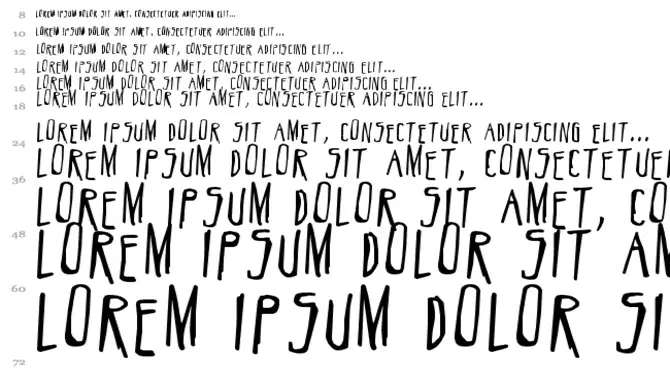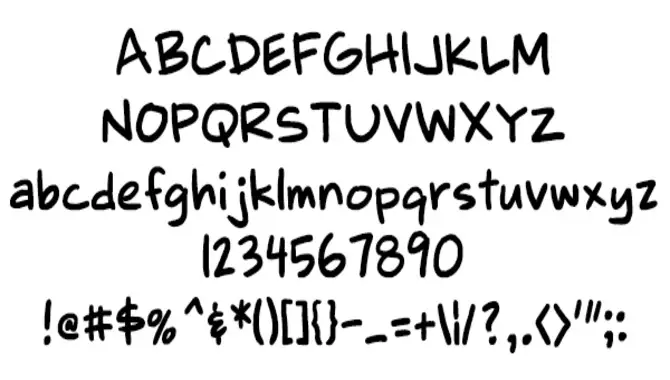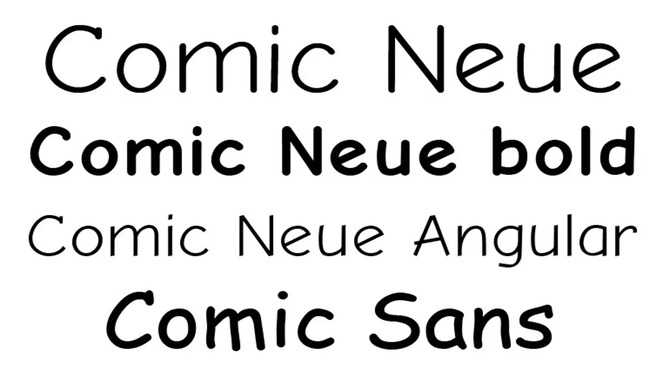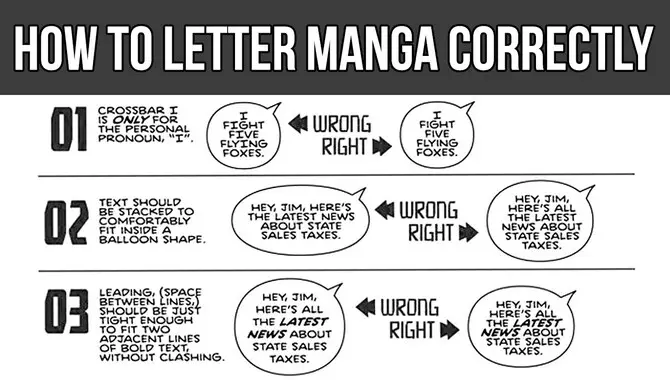
Choosing the right font for comics is crucial as it can make or break the tone and emotion of your work. Different fonts come in different styles, and comic typography has evolved throughout history to reflect changing tastes and preferences.
Comics have been around for over a century, and the fonts used in them have played an integral role in setting the tone and mood of the story. Choosing the right font can make all the difference in creating a compelling comic.
We will provide a comprehensive guide on 5 fonts used in comics and their features and advantages. We will also discuss the differences between serif and sans-serif fonts commonly used in comics and the best practices for using fonts effectively.
How To Choose Font Used In Comics
Choosing the right font for your comic is essential as it can significantly impact the tone and emotion conveyed in your narrative. When selecting a font, consider the genre of your comic and choose a font that complements its mood.
It’s also important to ensure that the font is easy to read, especially in small sizes or on digital screens. Avoid using too many fonts in one comic, confusing your readers. Instead, experiment with different combinations to find a unique style that reflects your vision. Lastly, use bold or italicized versions of font to emphasize certain words or dialogue.
1. Comic Neue Font
Comic Neue is a popular font combining classic comic book style and modern design elements. Its readability and versatility for different types of comics make it a preferred choice for many comic book creators. The font comes in various weights and styles, making it easy for print and digital comics.
When choosing a font for your comic, factors such as legibility, style, and tone must be considered. Ultimately, the font you choose should complement the overall aesthetic of your comic while being easy to read.
2. Belizarius Font
Belizarius Font is a bold, commanding font that strengthens superhero comics or action-packed scenes. It’s thick strokes and sharp edges make it easy to convey a sense of power and drama on the page.
This versatile font comes in regular and italic styles, making it suitable for different comic designs. However, it’s essential to remember that the typeface should match the overall tone of your comic book, so take care when selecting the right font for your project.
3. Boldly Missy Comic Handwriting Font
With Boldly Missy Comic Handwriting Font, you can add a touch of whimsy and personality to your comic book characters’ dialogues. This font brings a playful vibe to your pages with its bold, handwritten style that’s easy to read.
Whether you’re creating superhero stories or graphic novels, this versatile font is perfect for various comic book genres. Additionally, customization options such as size and color allow you to match the font to your comic book’s theme and create a unique look.
4. Little Pea Font
Little Pea Font is a highly popular choice among comic book creators due to its whimsical and playful appearance. Its rounded, bubbly style is perfect for conveying humor or a lighthearted tone. This font is also easy to read, making it an ideal option for dialogue and captions.
Creators can adjust the size and spacing of the font to fit their specific needs, allowing for versatility in design. Little Pea Font is readily available for download on many font websites, making it a convenient choice for comic book creators.
5. Badaboom Comic Font
Badaboom Comic Font is popular among comic book creators due to its bold and playful style. Inspired by the lettering of classic comic books, it’s perfect for creating a vintage or retro look in your comics. This font is easy to read and has a fun, whimsical feel that can add personality to your characters’ speech bubbles.
Whether you’re creating children’s comics or lighthearted stories, Badaboom Comic Font is an excellent choice. Remember to consider the tone and style of your story when choosing the right font for your comic book.
Differences Between Serif And Sans-Serif Fonts In Comics
When choosing fonts for comics, one of the most critical decisions is whether to use serif or sans-serif fonts. Both options have pros and cons, and the choice ultimately depends on the vibe you want to create. Sans-serif fonts are typically more modern and easy to read on digital screens, making them popular for web comics.
On the other hand, serif fonts tend to be better suited for print and can create a classic or vintage feel. They also tend to have more character and personality than their sans-serif counterparts. Consider your audience and purpose when choosing between these two options.
Serif Fonts Are Commonly Used In Comics
Serif fonts have been a popular choice for comic book lettering, as they can add a traditional or classic feel to comics. Times New Roman, Garamond, and Baskerville are some of comics’ most commonly used serif fonts. These fonts have small lines or flourishes at the end of each letter stroke, which can add character to the text.
5.Do You Have A Favorite Comic Book Font?
Ans. As an AI language model, I do not have personal preferences. However, some popular comic book fonts include Comic Sans, Comic Book, Blambot FX Pro, and Wild Words. The font choice should depend on the type of story and mood you want to convey.